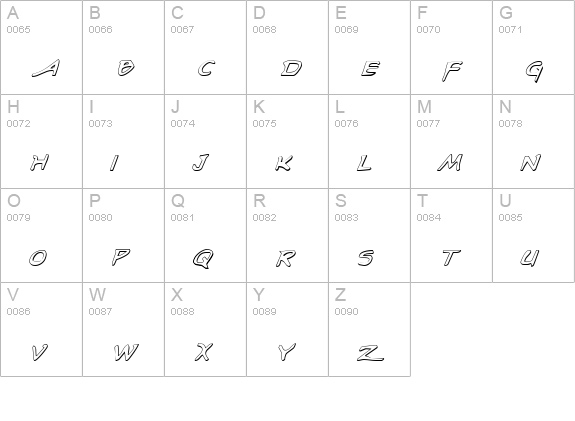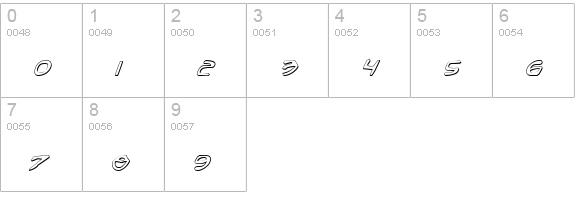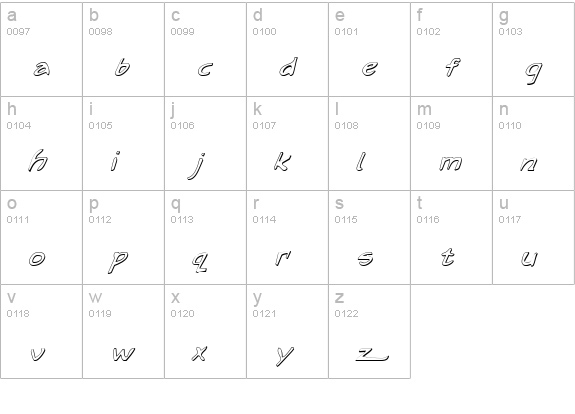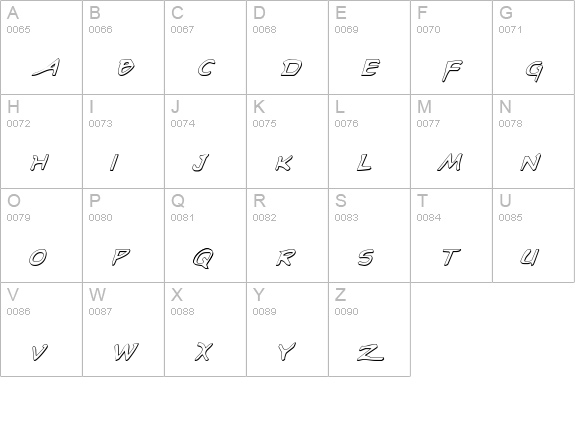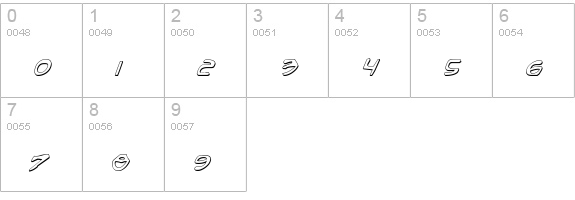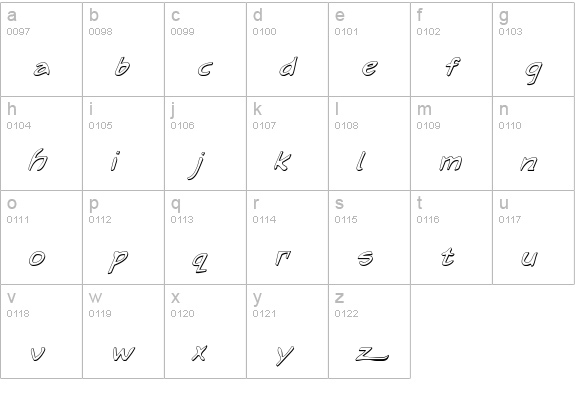
Arilon Shadow Italic is a distinctive, italic variant in the Arilon typeface family \xE2\x80\x94 well suited to design and typography projects.
Arilon Shadow Italic font is a stunning typeface that exudes elegance and sophistication with its sleek, modern design. The italic style adds a touch of flair and creativity to any project, making it perfect for branding, editorial design, and more. The shadow effect creates a sense of depth and dimension, adding visual interest to your text. What sets Arilon Shadow Italic font apart is not only its striking appearance but also the fact that it is available for free download. Yes, you read that right - this premium font can be yours at no cost! Simply head over to FontsMarket.com to grab your copy and elevate your designs with this unique and versatile typeface. Don't miss out on this opportunity to enhance your creative projects with Arilon Shadow Italic font today!